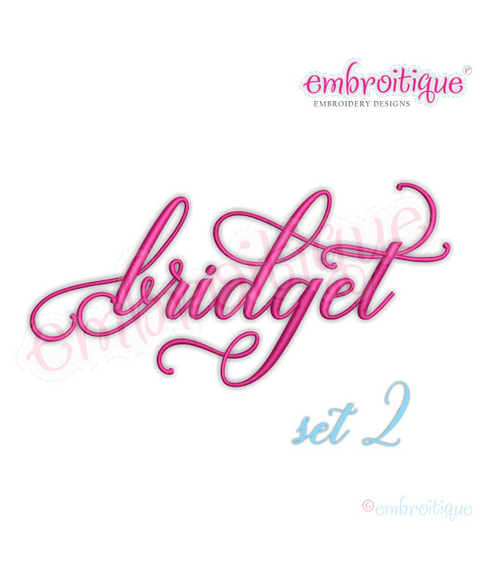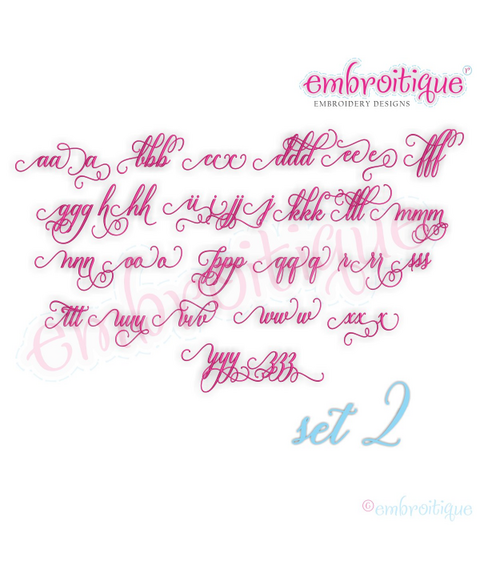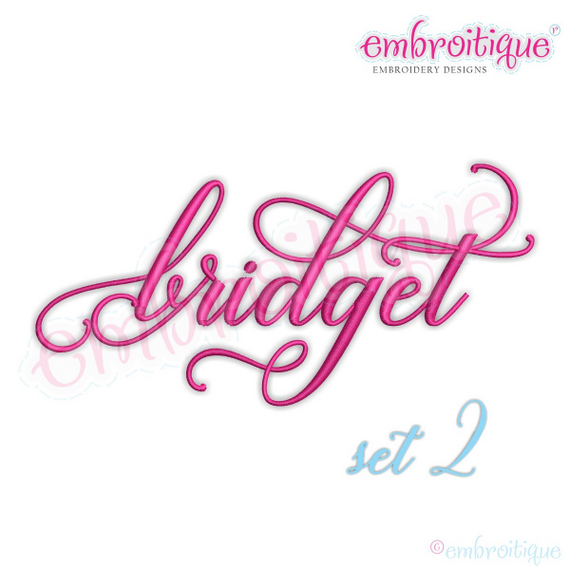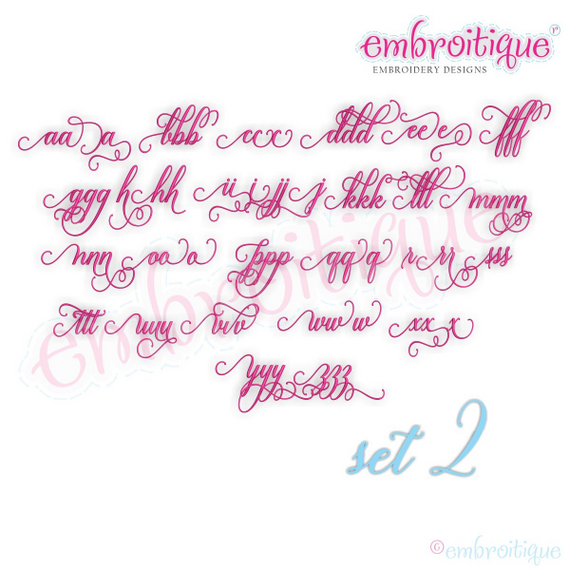
Bridget Monogram Set 2 - Small - Beautiful Calligraphy Swash Interchangeable Machine Embroidery Alphabet font - BX files included
This set includes 3 sets of lowercase alternates to be used withBridget Set 1 and Bridget set 2.
Note - this set does not include capital letters or the basic lower case letters. The basic lower case letters are in set 1 only. Alternate capital letters and additional lower case alternates are in set 2. All of the Bridget sets are designed to work together to swap in and out alternate letters to create beautiful names, words and phrases. Thsizes are proportionate to the capital A in each set. The files are named cap, low, and low 2 to distinguish each set of lowercase letters.